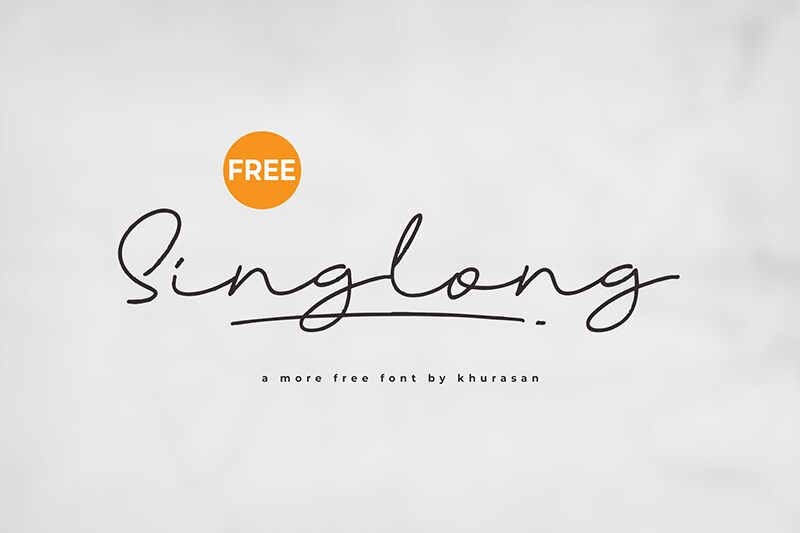
Singlong
Singlong font is a light handwritten signature font by Khurasan; it’s minimalist yet impactful, elegant, and flowing. It perfectly incorporates vibrant scripts in natural arrangements where the connection between each letter is seamless and beautiful. This free calligraphy font has casual characteristics which make it suitable for many different types of projects.